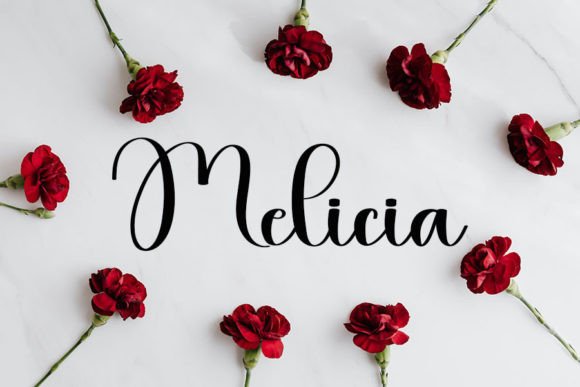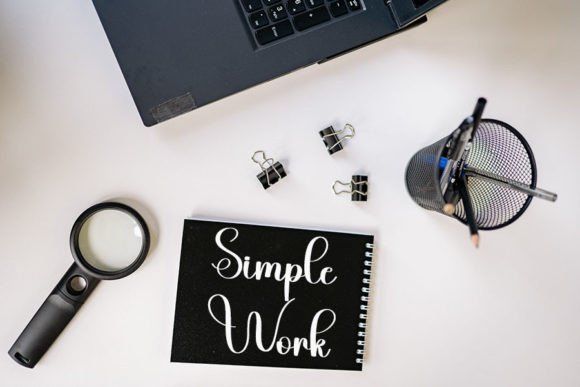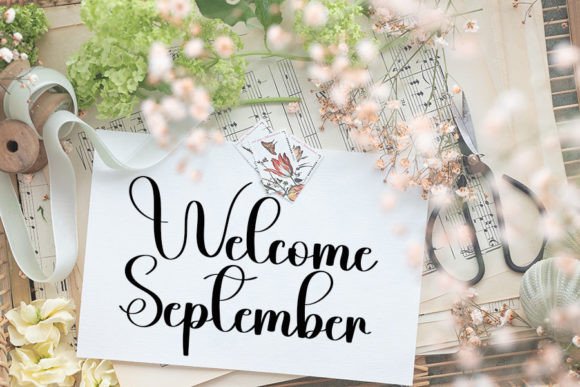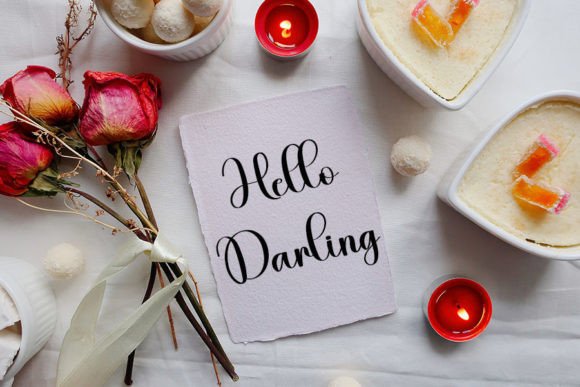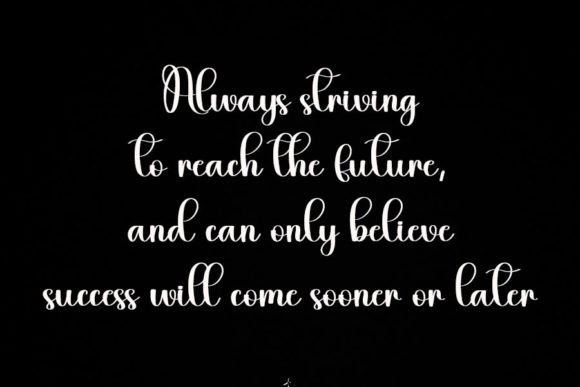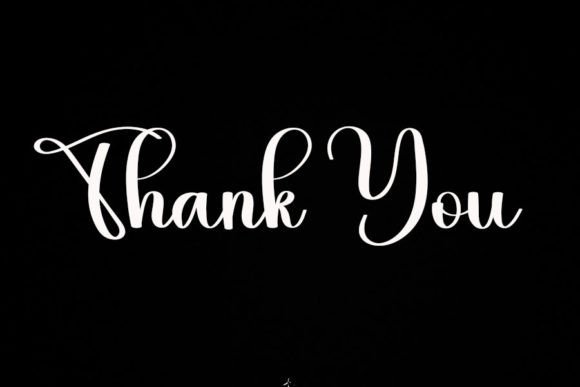
The Perfect Accessory for Your Design
As a designer, there’s nothing quite like the thrill of discovering a new font that adds a touch of magic to your project. It’s like stumbling upon the perfect accessory for a outfit – it elevates the entire look and makes it truly unforgettable. For me, that moment came when I discovered the sweet and beautiful handwritten font known as Fashion Font.
Fashion Font is more than just a pretty face – it’s a powerful tool that can add a luxury spark to any design project. With its dancing characters that play along the baseline, it’s the perfect choice for anyone looking to add a touch of sophistication and elegance to their work.
Fashion Font Key Features
- Font Family: Fashion Font is a unique, high-end font family designed specifically for fashion and luxury brands.
- Unique Characteristics: Fashion Font features intricate details, elegant curves, and sophisticated flair, making it perfect for high-end fashion brands and luxury designers.
Fashion Font Review
Overall, I’m a fan of Fashion Font. It’s a great choice for designers who want to add a touch of elegance to their projects. ✨ The font is highly customizable, with a wide range of options for font sizes, colors, and styles. This makes it easy to create a consistent look across your design.
One of the things that I love about Fashion Font is its versatility. ✨ It works well for both digital and print designs, and it’s easy to pair with other fonts to create a unique look. The font is also highly legible, making it perfect for body text and headings.
While Fashion Font is a great choice for many designers, there are some limitations to consider. ⚠️ One of the main issues is that the font is not ideal for use in small text sizes. At very small sizes, the font can become difficult to read.
Overall, I think Fashion Font is a great choice for designers who want to add a touch of sophistication to their projects. While it has some limitations, the font’s versatility and customizability make it a great choice for a wide range of designs.
- Wide range of font sizes and colors
- Easy to pair with other fonts
- Highly legible
- Not ideal for use in small text sizes
Getting the Most Out of Fashion Font
For optimal results, use Fashion Font in combination with other design elements, such as bold text, italics, and underlining.
Use Fashion Font to add a touch of elegance and sophistication to your designs.
Experiment with different font sizes and colors to create visual interest and emphasis.
Fashion Font is ideal for:
Fashion and beauty branding
Luxury product packaging
High-end marketing materials
Fashion magazines and editorials
Any design project that requires a touch of elegance and sophistication.